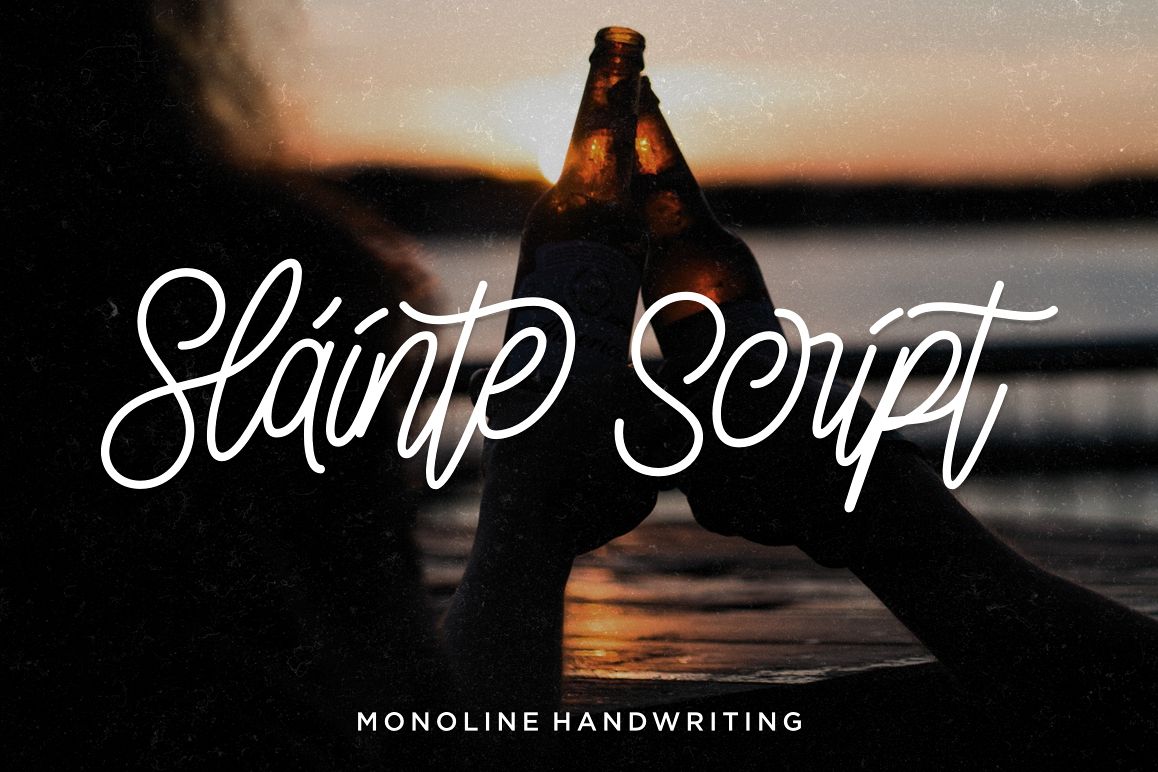
Sláinte Script
Introducing Sláinte Script, our new monoline
script that are heavily inspired by the modern calligraphy. Refined from
scratch using ballpoint pen, this typeface offers you an authentic yet
unique handwriting feel.
Packed with 400+ glyphs, including lots of
alternate characters and ligatures to explore, go wild with them!
Suits best for almost any kind of projects; wedding invitations,
adventurous-hipster posters, t-shirt designs, faux neon sign, you name
• Uppercase, lowercase, numerals and punctuations,
• Multilingual support,
• OpenType features (alternates, swashes, ligatures, initial and terminal forms),